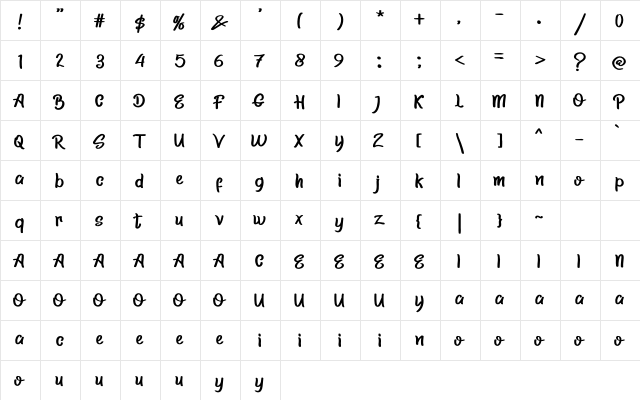
Homework Regular
Design Context for Homework Typeface
Homework is a composed and adaptable typeface that performs quietly and consistently across a wide range of design contexts.